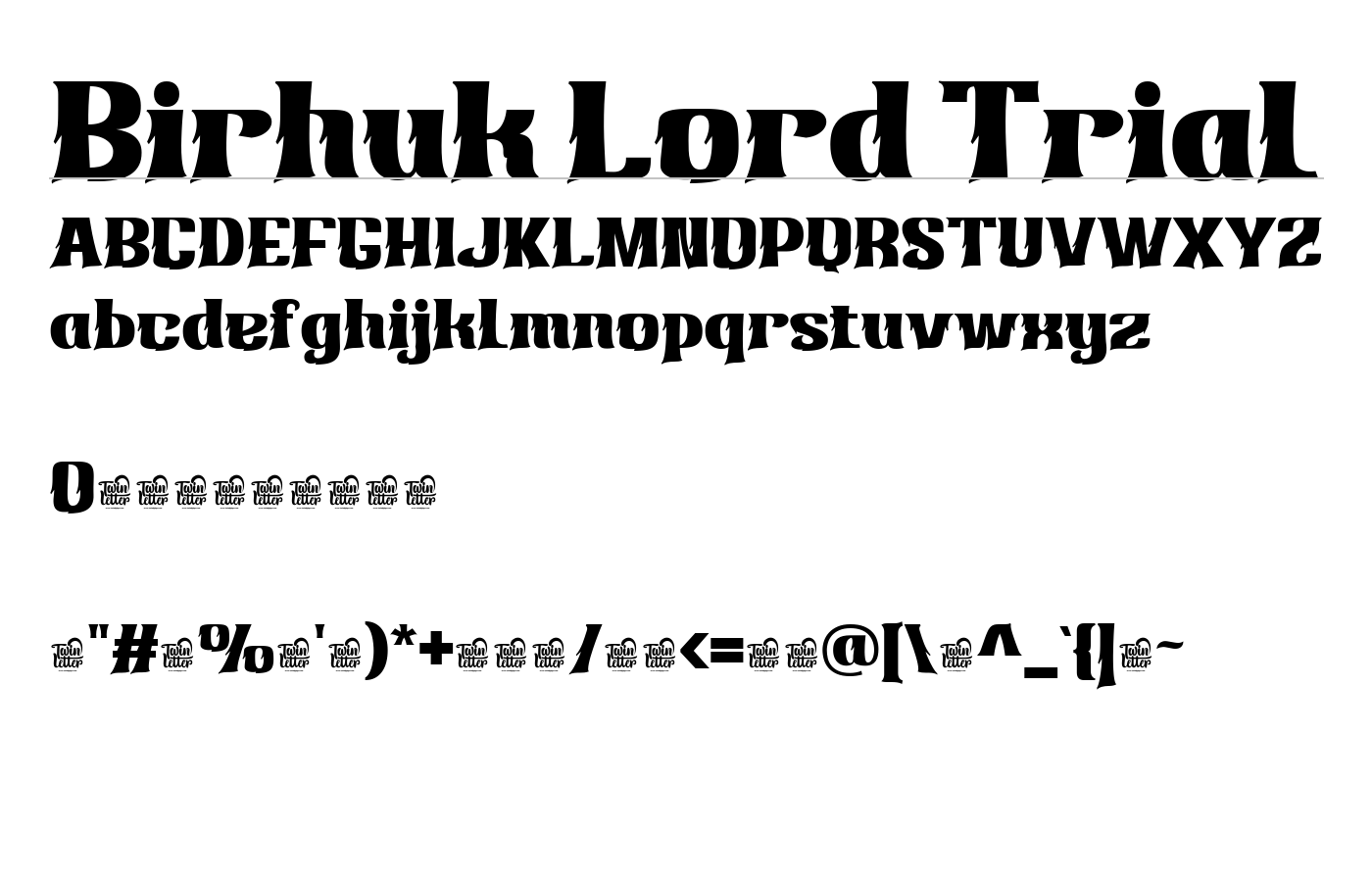
Birhuk Lord Trial is a bold serif font with a strong presence characterized by thick, sharp serifs and high stroke contrast, giving it a dramatic and vintage feel. Its slightly condensed letterforms and distinct shapes add an old-world charm, making it ideal for eye-catching headlines, logos, and branding that aim to evoke a sense of tradition and boldness. This font works well in creative projects that need a statement with a touch of historic elegance and strength.
Birhuk Lord Trial Font
About Birhuk Lord Trial Font
| Font family | Birhuk Lord Trial Font |
| Designer | HAKIM |